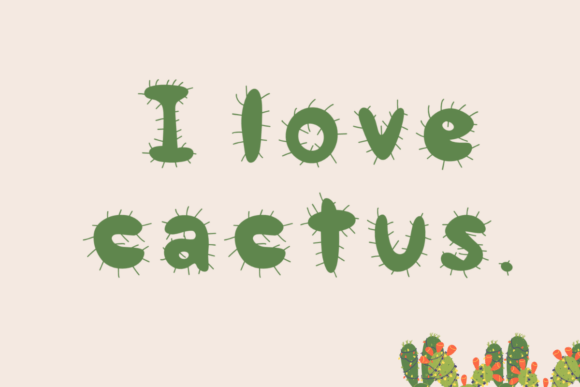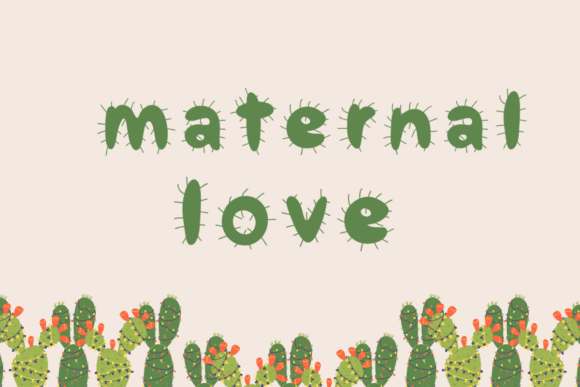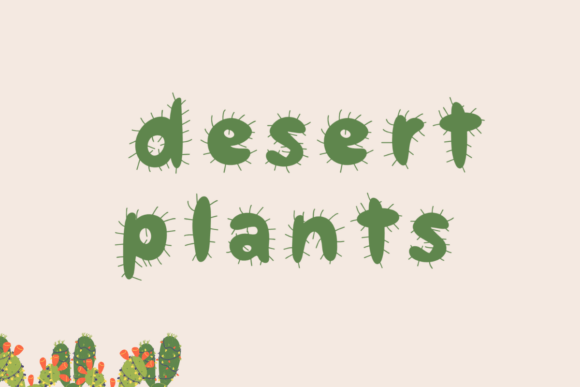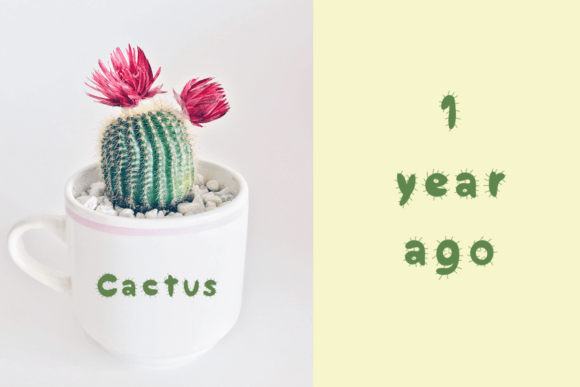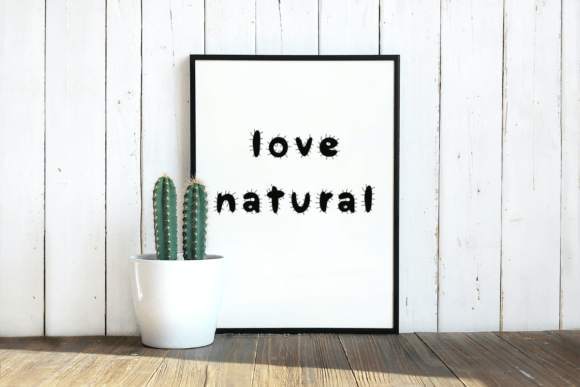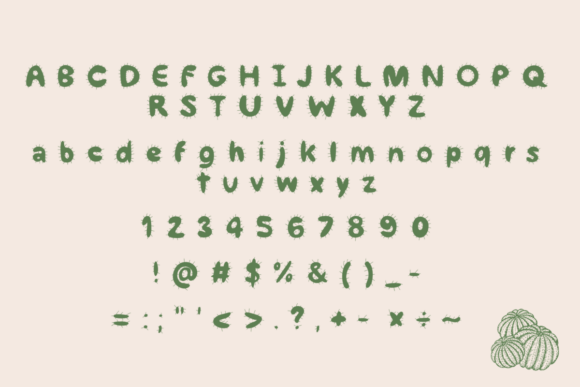
Cactus Font: The Ultimate Decorative Font for Your Design Projects
Are you a designer or crafter looking for a unique and eye-catching font to add a touch of natural beauty to your projects? Look no further than the Cactus font! This decorative font is perfect for projects related to natural themes, desert plants, and strength or power. In this article, we’ll explore the features and benefits of the Cactus font, and show you how to use it to take your designs to the next level.
What is Cactus Font?
Cactus font is a decorative font that is inspired by the prickly yet beautiful cactus plant. It’s a unique and stylish font that is perfect for adding a touch of desert charm to your designs. The font features bold, spiky letters that are reminiscent of cactus spines, making it a great choice for projects that require a strong and edgy look.
Features of Cactus Font
The Cactus font has several features that make it a great choice for designers and crafters. Some of its key features include:
- Unique and eye-catching design: The Cactus font has a distinctive and stylish design that is sure to grab attention.
- Perfect for natural themes: The font’s natural, desert-inspired design makes it perfect for projects related to nature, outdoors, and environmental themes.
- Strong and edgy look: The font’s bold, spiky letters give it a strong and edgy look that’s perfect for projects that require a bit of attitude.
- Versatile: The Cactus font can be used on a wide range of projects, from cards and flyers to banners and social media graphics.
How to Use Cactus Font
The Cactus font is easy to use and can be applied to a wide range of design projects. Here are some ideas for using the Cactus font:
- Cards and invitations: Use the Cactus font to create unique and eye-catching cards and invitations for special occasions.
- Flyers and brochures: Add a touch of desert charm to your flyers and brochures with the Cactus font.
- Banners and posters: Use the Cactus font to create bold and eye-catching banners and posters for events and promotions.
- Social media graphics: Add a touch of personality to your social media graphics with the Cactus font.
- Book titles and covers: Use the Cactus font to create unique and eye-catching book titles and covers.
Benefits of Using Cactus Font
There are several benefits to using the Cactus font in your design projects. Some of the benefits include:
- Increased visibility: The Cactus font’s unique and eye-catching design is sure to grab attention and increase visibility for your projects.
- Improved brand identity: The Cactus font can help to create a strong and memorable brand identity for your business or organization.
- Enhanced creativity: The Cactus font’s bold and edgy design can help to inspire creativity and add a touch of personality to your projects.
Tips for Using Cactus Font
Here are some tips for using the Cactus font effectively in your design projects:
- Use it sparingly: The Cactus font is bold and eye-catching, so use it sparingly to avoid overwhelming your design.
- Pair it with complementary fonts: Pair the Cactus font with complementary fonts to create a unique and visually appealing design.
- Experiment with colors: Experiment with different colors and textures to add depth and interest to your design.
The Cactus font is a unique and eye-catching decorative font that is perfect for projects related to natural themes, desert plants, and strength or power. With its bold, spiky letters and versatile design, it’s a great choice for designers and crafters looking to add a touch of desert charm to their projects. By following the tips and guidelines outlined in this article, you can use the Cactus font to create stunning and effective designs that grab attention and inspire creativity.